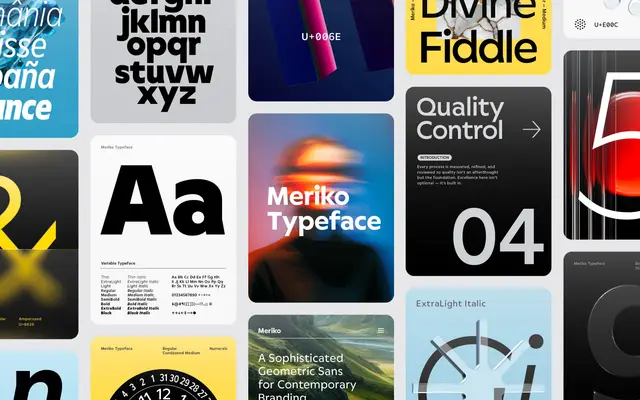
Meriko
A nine-weight grotesque from Juri Zæch spanning three widths with full italic coverage and variable font options across 56 styles.
Available in standard, SemiCondensed and Condensed widths, the family runs from Thin to Black with matching italics in each width variant. OpenType features include alternate forms for Q, a and y, tabular figures, slashed zero, fractions and case-sensitive forms. Variable font versions are offered for both upright and italic axes.
Meriko presents as a contemporary grotesque sans-serif with alternates for key characters and a range of widths from Condensed to standard, suggesting a rational yet refined grotesque lineage.